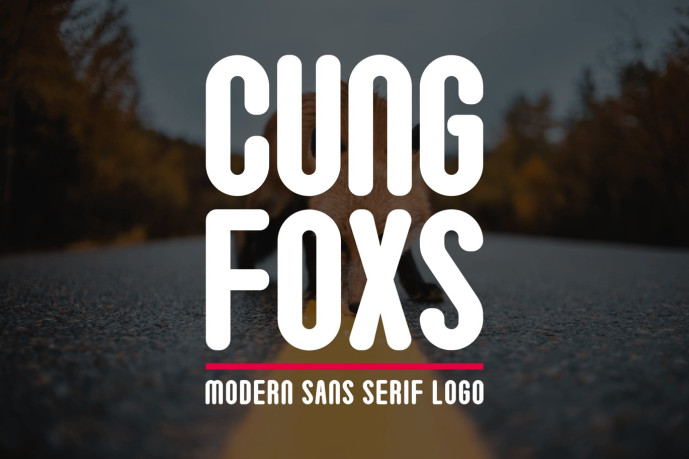
Cungfoxs – Modern Sans Serif Font
Designer: alanwarstd
Introducing our new product Cungfoxs – Modern Sans Serif Font
Cungfoxs – Modern Sans Serif Font is a bold and authentic display font. The font is suitable for any branding project like logo, esport, and many more. outstanding in a wide range of contexts.